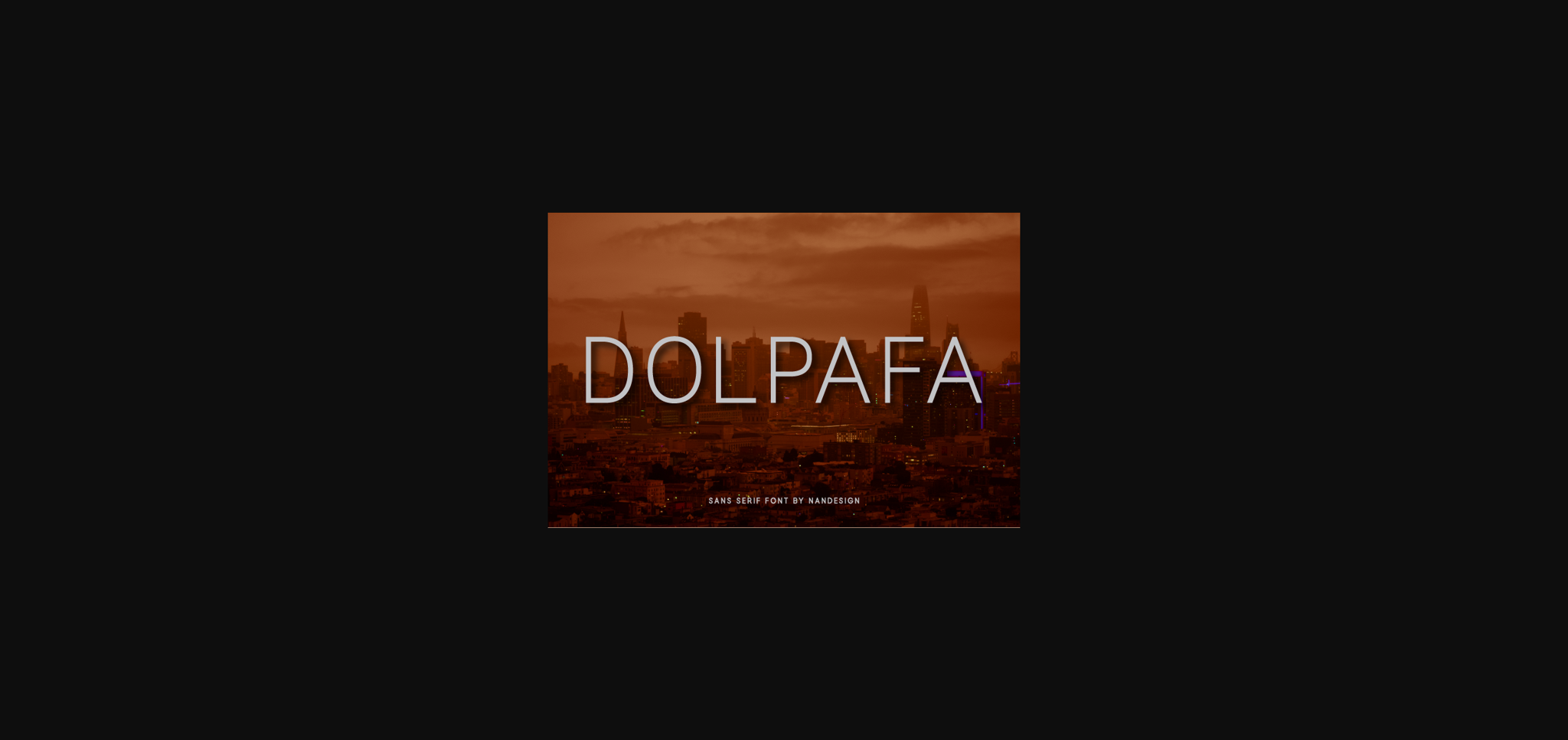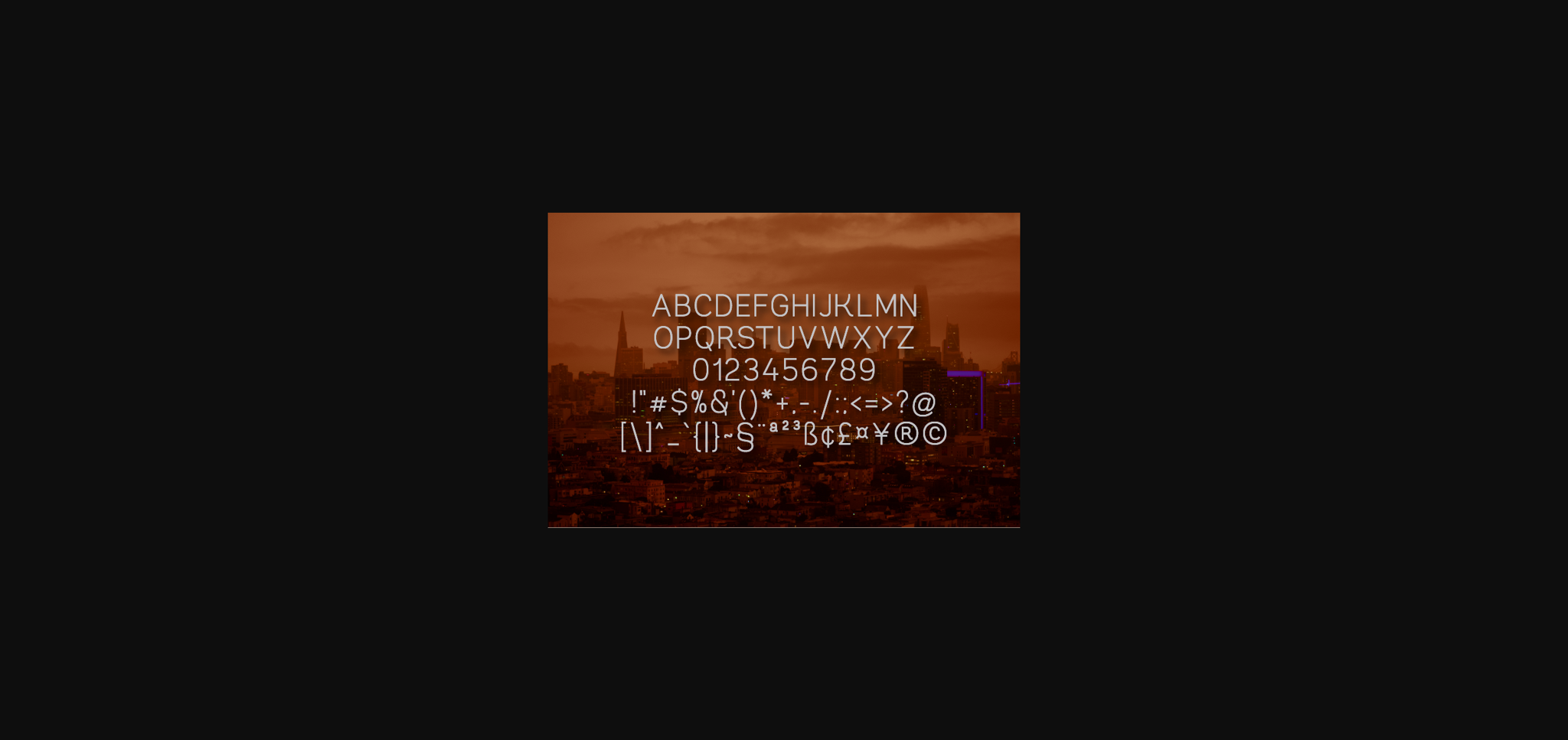
About Dolpafa Font
Dolpafa emerges as a versatile sans serif font, poised to complement any project you’re currently immersed in. Its simplicity and adaptability make it the perfect choice for a wide array of design endeavors, from eye-catching headings to elegant invitations and memorable logos.
With Dolpafa, creating beautiful headings becomes effortless. Its clean lines and balanced proportions ensure that your text commands attention without overwhelming the viewer, adding a touch of sophistication to any layout. Whether it’s for website headers, magazine titles, or promotional materials, Dolpafa delivers a refined aesthetic that captivates the audience.
Invitations take on a new level of elegance with Dolpafa. Its versatility allows for creative customization, whether you’re designing wedding invitations, party invites, or corporate event announcements. Dolpafa’s timeless appeal sets the tone for your event, conveying style and sophistication from the moment it’s received.
Logos become instantly memorable with Dolpafa’s sleek and modern design. Its clean letterforms and subtle curves lend a sense of professionalism and reliability, making it the perfect choice for businesses across various industries. Dolpafa’s versatility ensures that your logo stands out and leaves a lasting impression on your audience.
But Dolpafa’s utility extends beyond headings, invitations, and logos. Its simple yet elegant design makes it suitable for a wide range of design applications, including website typography, packaging labels, signage, and more. Whatever project you’re currently working on, Dolpafa is there to enhance its visual appeal and elevate its overall impact.
In summary, Dolpafa is a versatile sans serif font that complements every project with effortless style. Whether used for headings, invitations, logos, or beyond, Dolpafa adds a touch of elegance and sophistication that sets your designs apart. Embrace the versatility of Dolpafa and watch as your projects come to life with timeless beauty and grace.